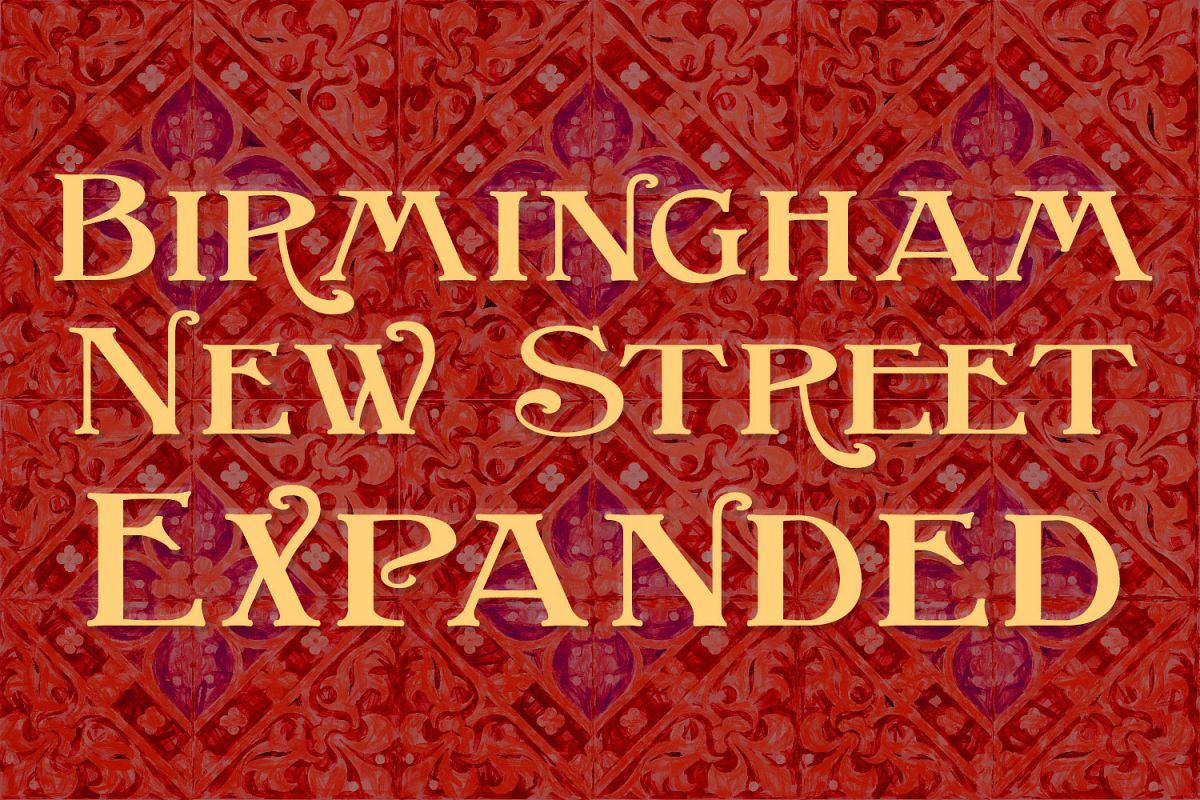
Birmingham New Street Expanded
Birmingham New Street is the latest updated development of a typeface family inspired by the hand lettered title on a 19th century railway map.. The map, prepared by the London and North Western Railway was headed "Birmingham and environs". New Street, meanwhile is the great 19th century commercial road linking the city centre of Birmingham with the train station of the same name.  So, in a spirit of 19th century enterprise, we present "Birmingham New Street", a fun family of three display faces, laden with open type features and late Victorian charm, ideal for posters, book covers and any other high flown design you might have in mind.